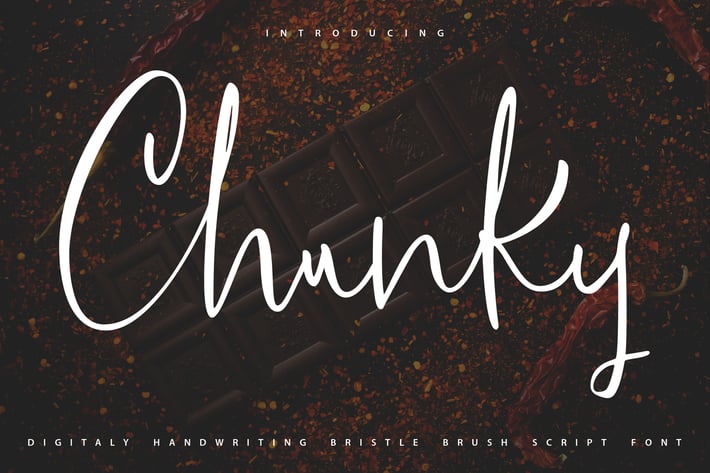
Chunky | Handwritten Bristle Brush Script Font
Chunky | Handwritten Bristle Brush Script Font with a calligraphy style, So beautiful on invitation like greeting cards, branding materials, business cards, quotes, posters, and more!